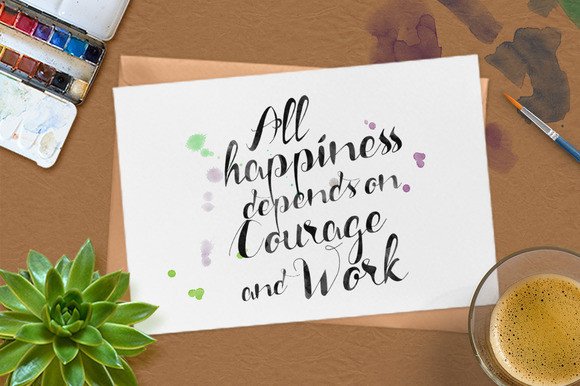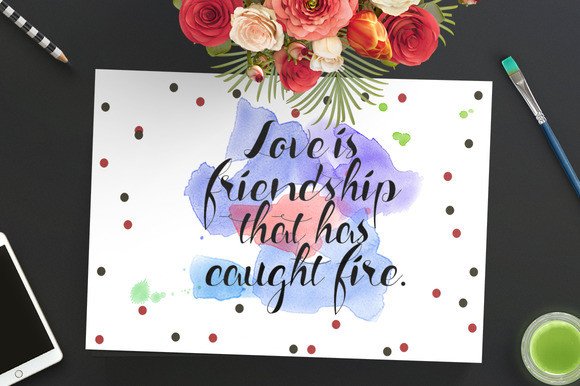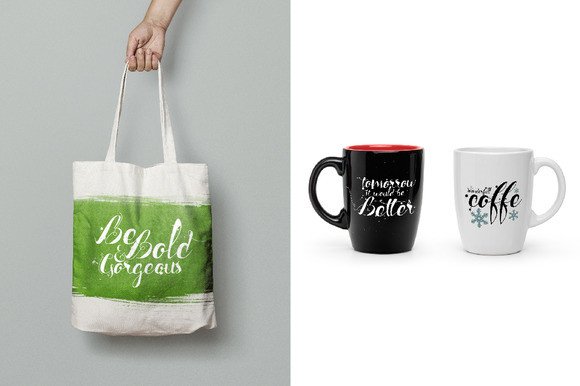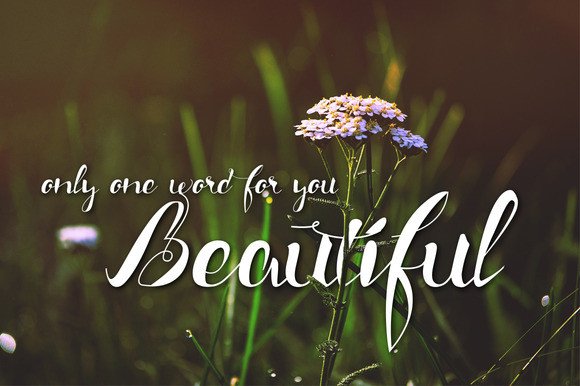
Introduction to Nafeeza Font
Have you ever stumbled upon the perfect font for your creative project, and it completely transforms the way your design looks and feels? That’s what happens when you discover a high-quality design resource like the Nafeeza Font. As a designer, you know how crucial it is to find the right typography to convey your message and leave a lasting impression.
Imagine being able to add a touch of elegance and sophistication to your letterheads, signatures, and logos with just one font. With the Nafeeza Font, you can do just that. This modern script font is designed to be versatile and adaptable, making it perfect for a wide range of creative projects, from wedding invitations to t-shirts and badges.
Key Features of Nafeeza Font
- Unique and elegant design, perfect for creative projects and design resources.
- Perfect for use in various design projects, including logos, brochures, and websites.
Honest Review: Nafeeza Font
I recently stumbled upon the Nafeeza Font, and I must say, it’s a fantastic addition to any design resource library. This elegant script font is perfect for creative projects that require a touch of sophistication.
What works well: ✨ The Nafeeza Font is incredibly versatile, making it suitable for a wide range of applications, from wedding invitations to branding materials. Its high quality and smooth curves make it a joy to work with.
What I particularly appreciate is that the font comes with a transparent background, which allows for seamless integration with any design. This feature makes it easy to use the font in combination with other design elements.
- High quality: The font is designed with attention to detail, resulting in a polished and professional look.
However, I do have one minor gripe: ⚠️ The font is not as extensive as some other script fonts on the market. While it’s perfect for many projects, it may not be enough for designers who need a wide range of variations.
Overall, I’m thoroughly impressed with the Nafeeza Font. It’s a fantastic design resource that’s sure to elevate any creative project. If you’re looking for a high-quality script font, I highly recommend giving it a try.